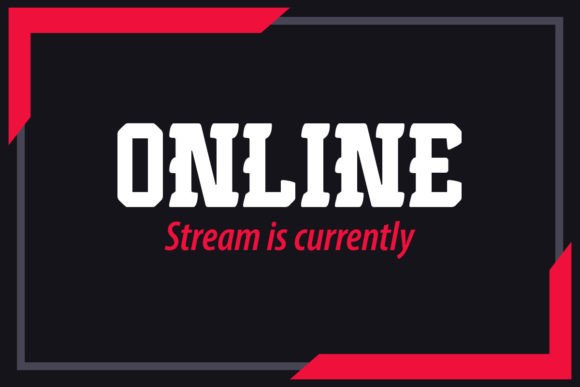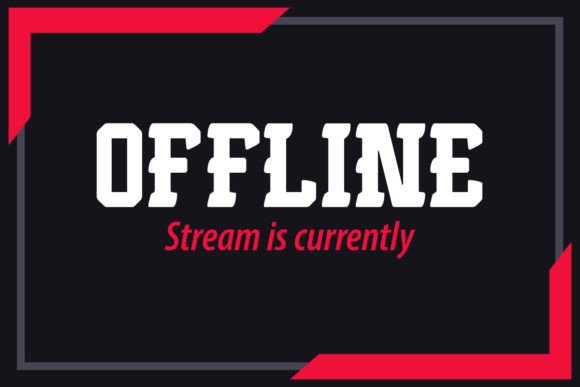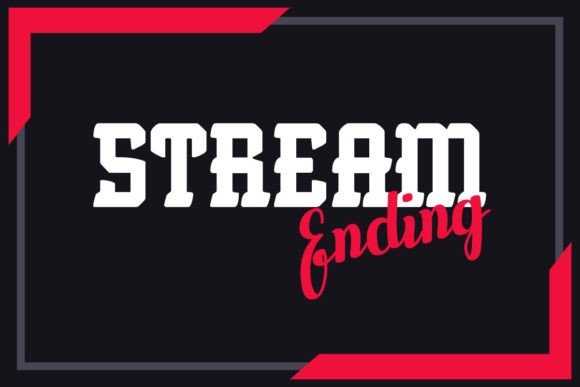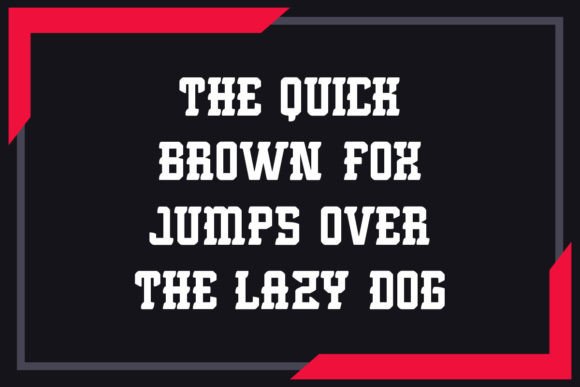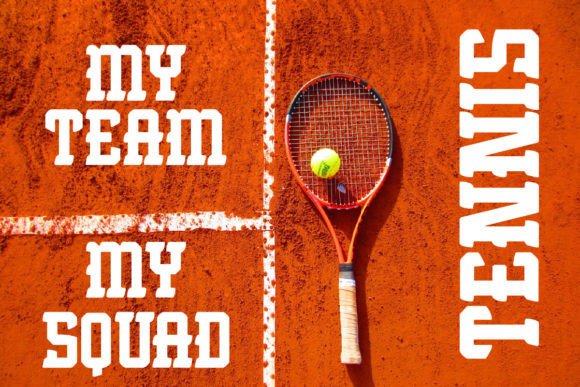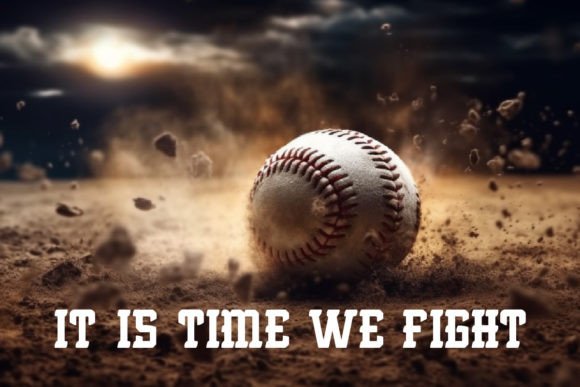
Unleash Your Creativity with Derush Font: The Ultimate Display Font for Designers and Crafters
Are you tired of using the same old fonts for your creative projects? Look no further! Derush Esport is an incredibly unique display font that is sure to take your designs to the next level. Masterfully designed to become a true favorite, this font has the potential to bring each of your creative ideas to the highest level. In this article, we’ll dive into the world of Derush Font and explore its features, benefits, and uses.
What is Derush Font?
Derush Font is a specially crafted display font that is designed to make a statement. Its unique and bold style makes it perfect for designers and crafters who want to add a touch of personality to their work. Whether you’re creating a logo, poster, or social media graphic, Derush Font is sure to grab attention and leave a lasting impression.
Key Features of Derush Font
- Unique and Bold Style: Derush Font boasts a one-of-a-kind design that is sure to set your work apart from the rest.
- Highly Versatile: This font can be used for a wide range of projects, from logos and posters to social media graphics and more.
- Easily Readable: Despite its bold style, Derush Font is surprisingly easy to read, making it perfect for headlines and titles.
- Customizable: With Derush Font, you have the freedom to experiment with different colors, sizes, and styles to create a look that’s uniquely yours.
Benefits of Using Derush Font
So why choose Derush Font for your next project? Here are just a few benefits of using this incredible display font:
- Adds Personality to Your Work: Derush Font is the perfect way to inject some personality into your designs and make them stand out.
- Increases Visibility: With its bold and eye-catching style, Derush Font is sure to grab attention and increase visibility for your brand or message.
- Enhances Creativity: Derush Font is designed to inspire creativity and help you think outside the box.
How to Use Derush Font
Using Derush Font is easy! Here are a few tips to get you started:
- Experiment with Different Sizes and Styles: Don’t be afraid to experiment with different sizes and styles to find the look that works best for your project.
- Pair with Other Fonts: Derush Font pairs well with a range of other fonts, so feel free to get creative and try out different combinations.
- Use for Headlines and Titles: Derush Font is perfect for headlines and titles, but don’t be afraid to use it for body text too.
Derush Font: The Perfect Choice for Designers and Crafters
In today’s competitive design landscape, it’s more important than ever to stand out from the crowd. With Derush Font, you can add a touch of personality to your work and take your creative projects to new heights. So why choose Derush Font? With its unique and bold style, Derush Font is the perfect choice for designers and crafters who want to make a statement.